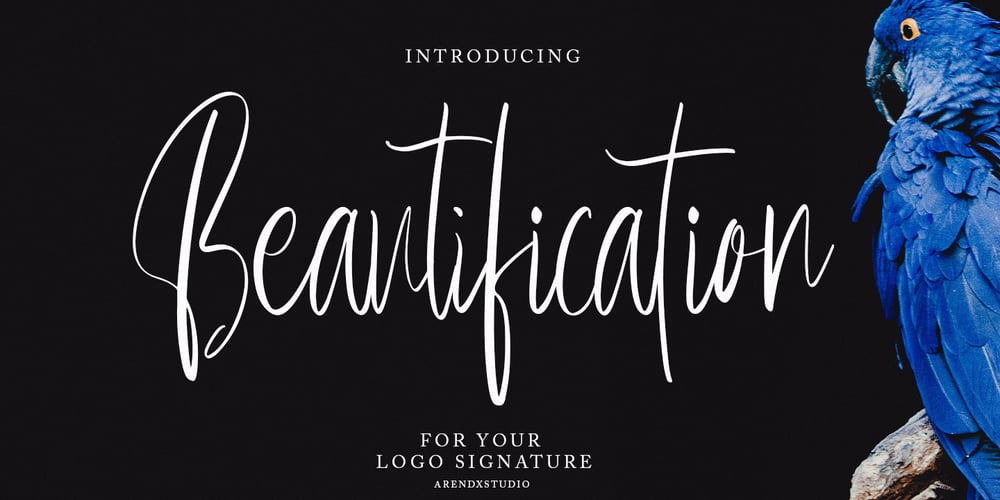
Beautification Font Family was designed by Asep Rendi and published by Arendxstudio. Beautification contains 1 styles and family package options. Introducing Beautification Signature, a handwritten font which is very elegant and modern and for you to use may your design interests be in logos, branding names, posters, podcasts and so on. This is perfect for you all. Featuring upper- and lowercase, numbers and punctuation, multi-lingual support and ligatures. There it is! I really hope you enjoy it – comments & likes are always welcome and accepted. More importantly, don’t hesitate to send a message if you have a problem or question. Now just read this, go there and make it happen.